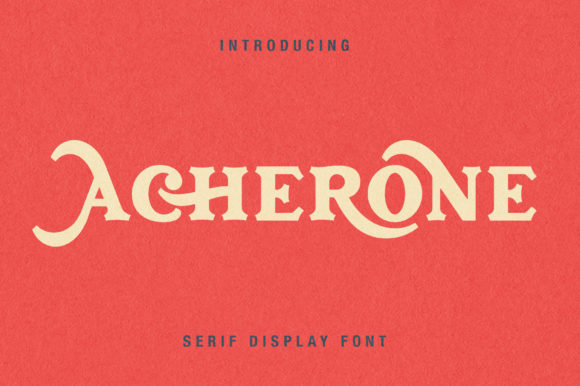
Welcome to the world of Archerone, a magnificent display font family crafted to make a statement in your designs. This masterpiece, born from the creative mind of Runsell Graphic, exudes a captivating vintage charm that will transport you back to an era of elegance and sophistication.
Unleash your imagination and dive into the realm of possibilities with Archerone. Its bold and distinctive characters dance harmoniously across any surface, demanding attention and leaving a lasting impression. Let your creativity soar as you explore the endless applications of this versatile font family, from eye-catching headlines to intriguing logos, and from captivating posters to enchanting invitations.
Archerone's vintage flair adds a touch of nostalgia and timeless appeal to your designs. Picture a handwritten letter, penned with care, its characters reflecting the charm and warmth of a bygone era. Embrace the beauty of imperfection as Archerone's organic curves and subtle variations bring a sense of authenticity to your work.
With Archerone, you hold the key to unlocking a world of captivating designs. Its bold presence commands attention, while its intricate details reward closer examination. Let your designs speak volumes with Archerone, captivating your audience and leaving them under the spell of its timeless charm.
Step into the spotlight with Archerone, the font family designed to make your designs shine. Its versatility knows no bounds, lending itself effortlessly to a myriad of creative endeavors. Transform your branding materials into works of art, craft stunning social media visuals, or design packaging that captivates customers from the moment they lay eyes on it.
As you embark on your creative journey with Archerone, you'll discover a font family that's not just a tool, but an extension of your artistic vision. Let Archerone be your muse, inspiring you to create designs that resonate with your audience and leave an indelible mark on their minds.
So, why settle for ordinary when you can embrace the extraordinary? Choose Archerone today and let your designs reach new heights of sophistication, elegance, and timeless charm.